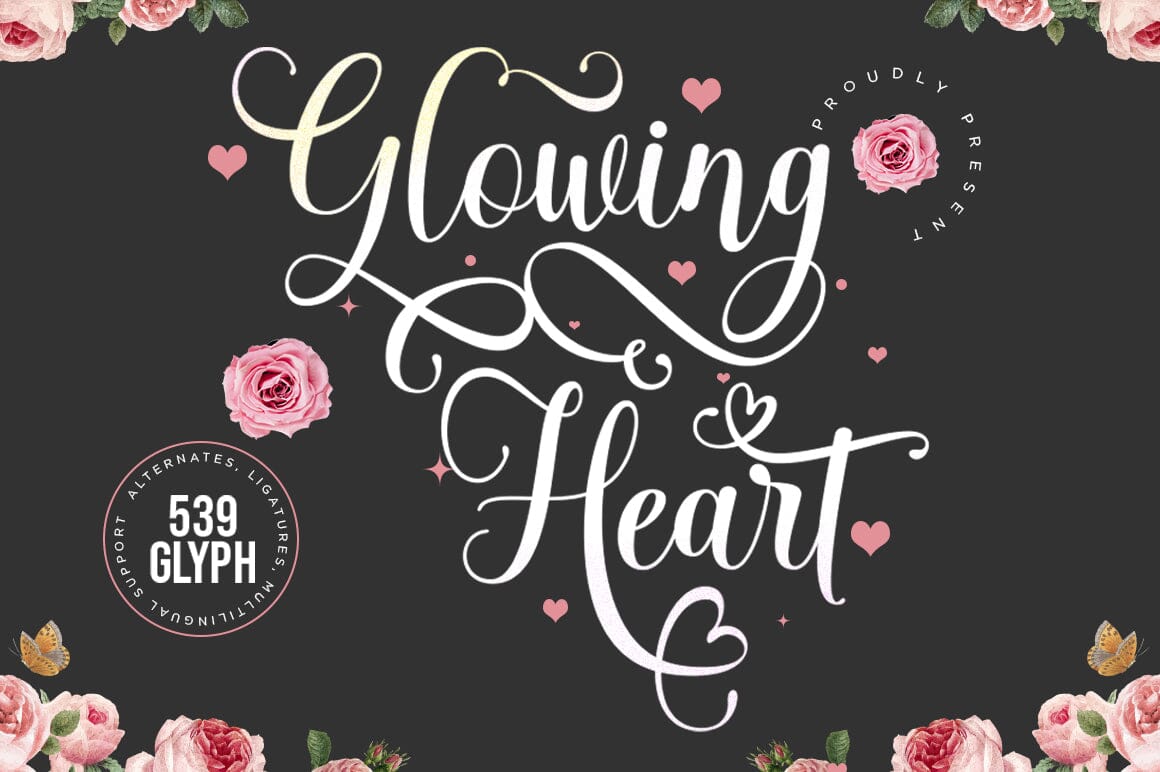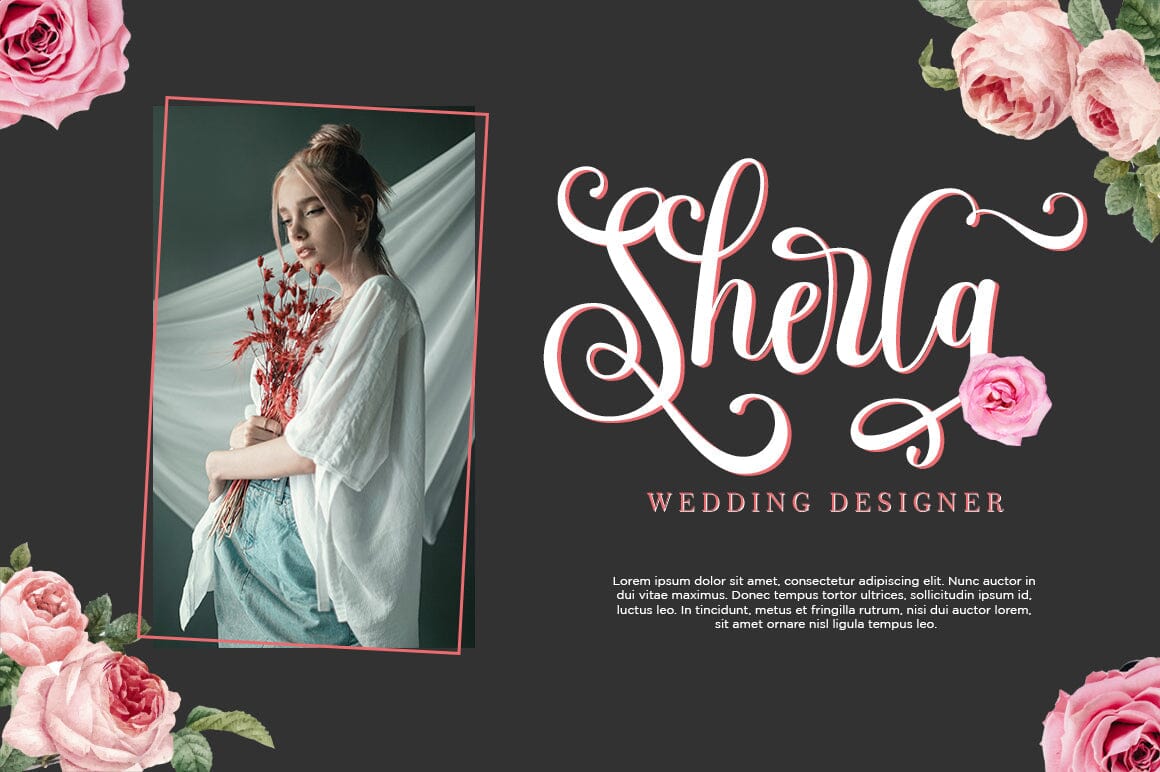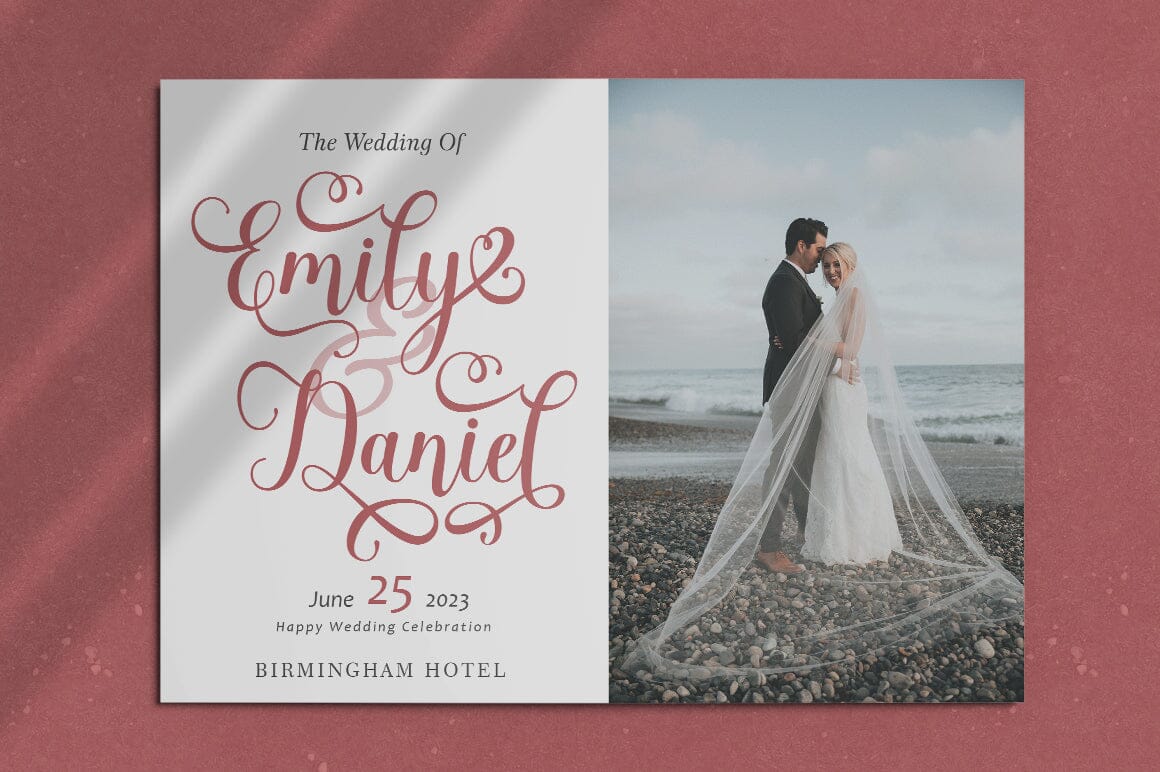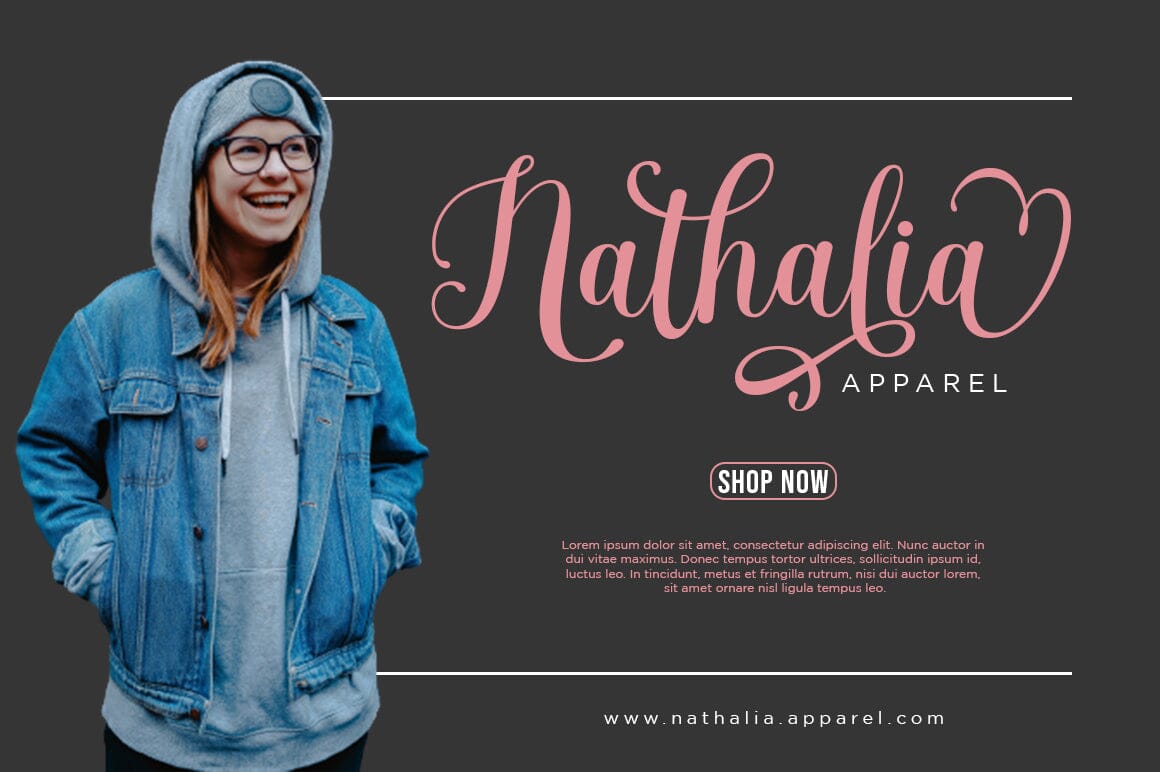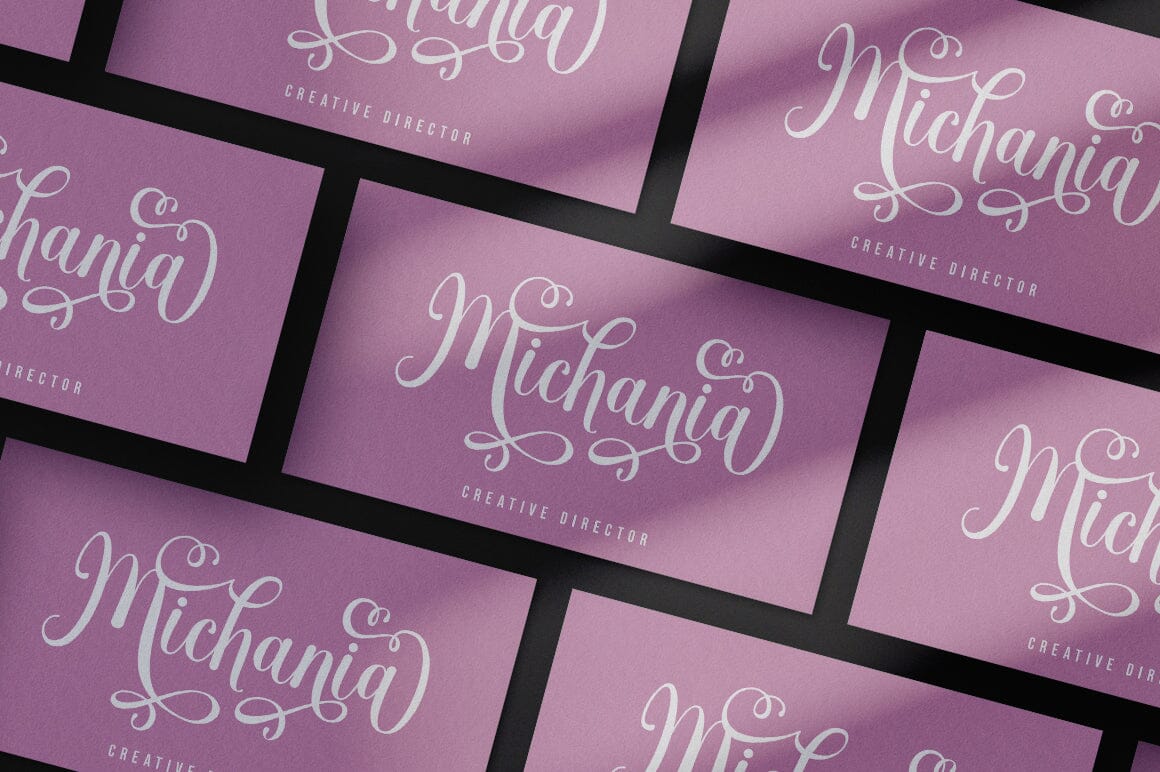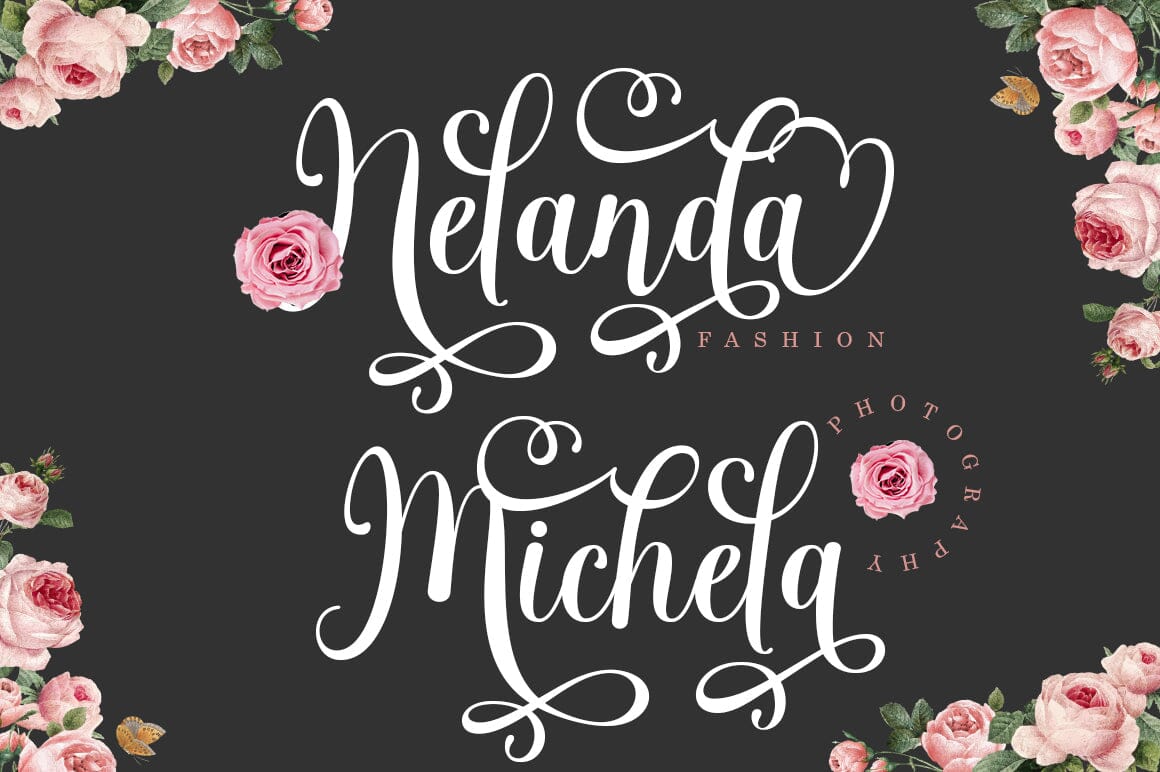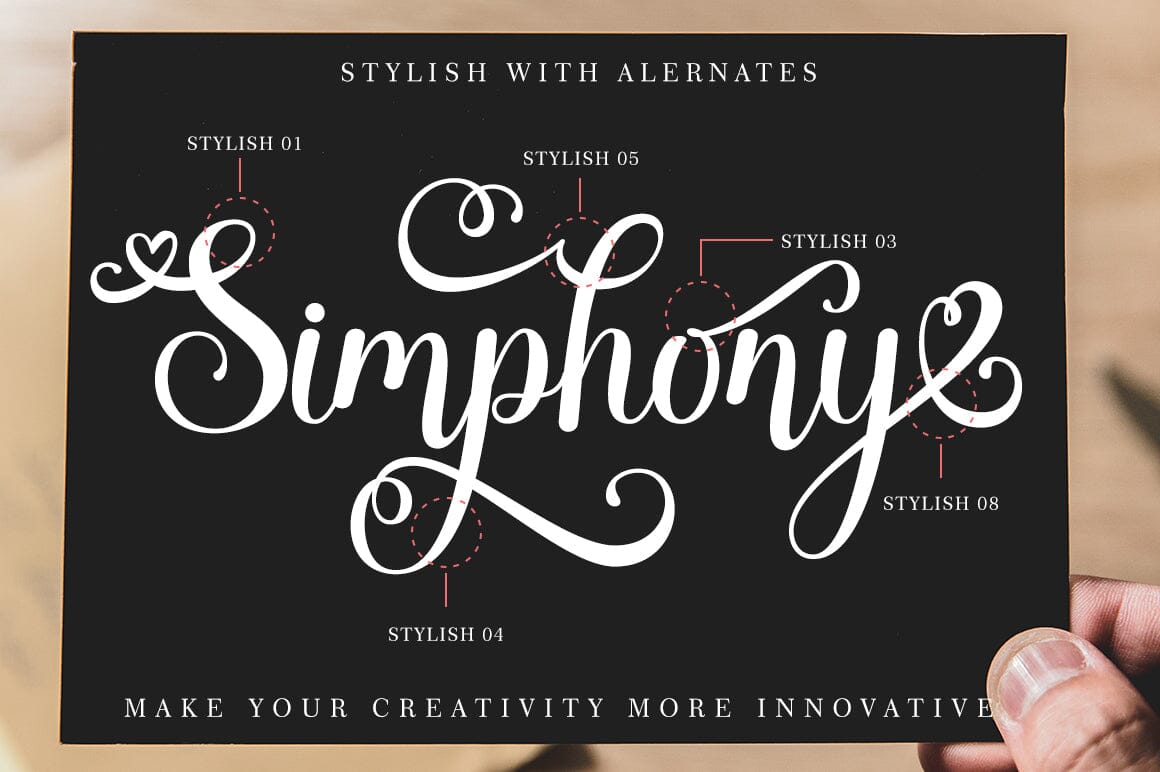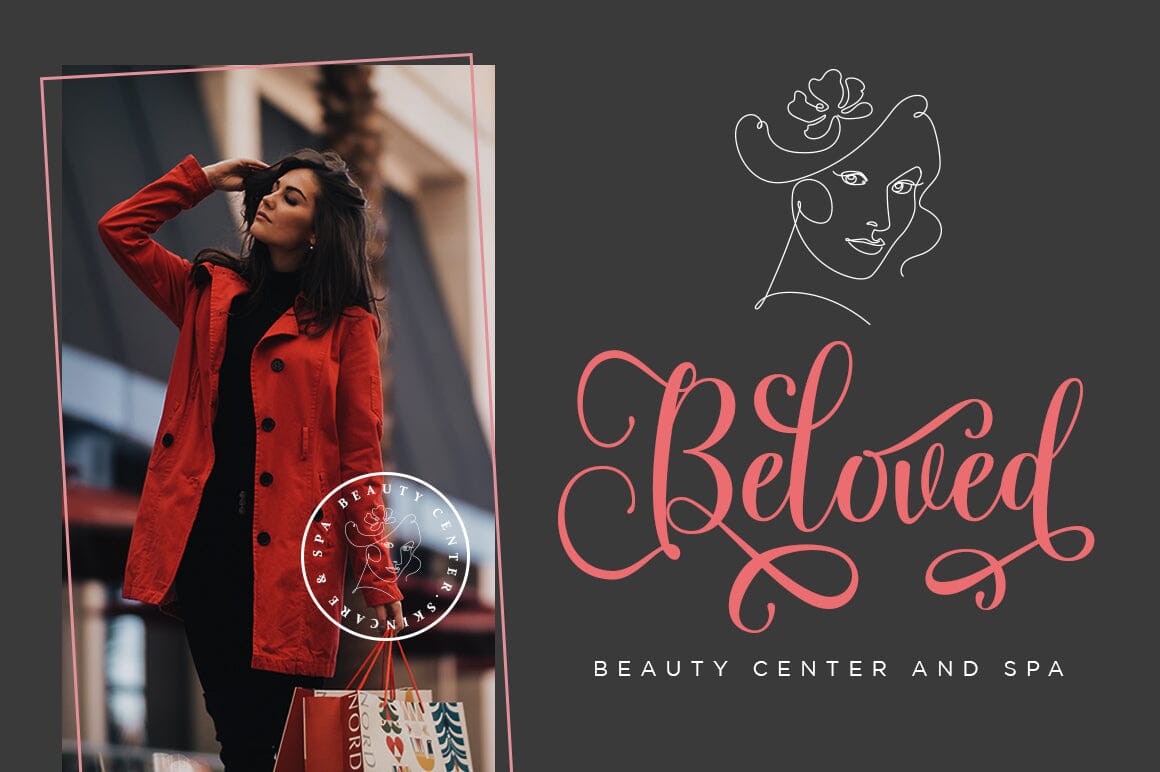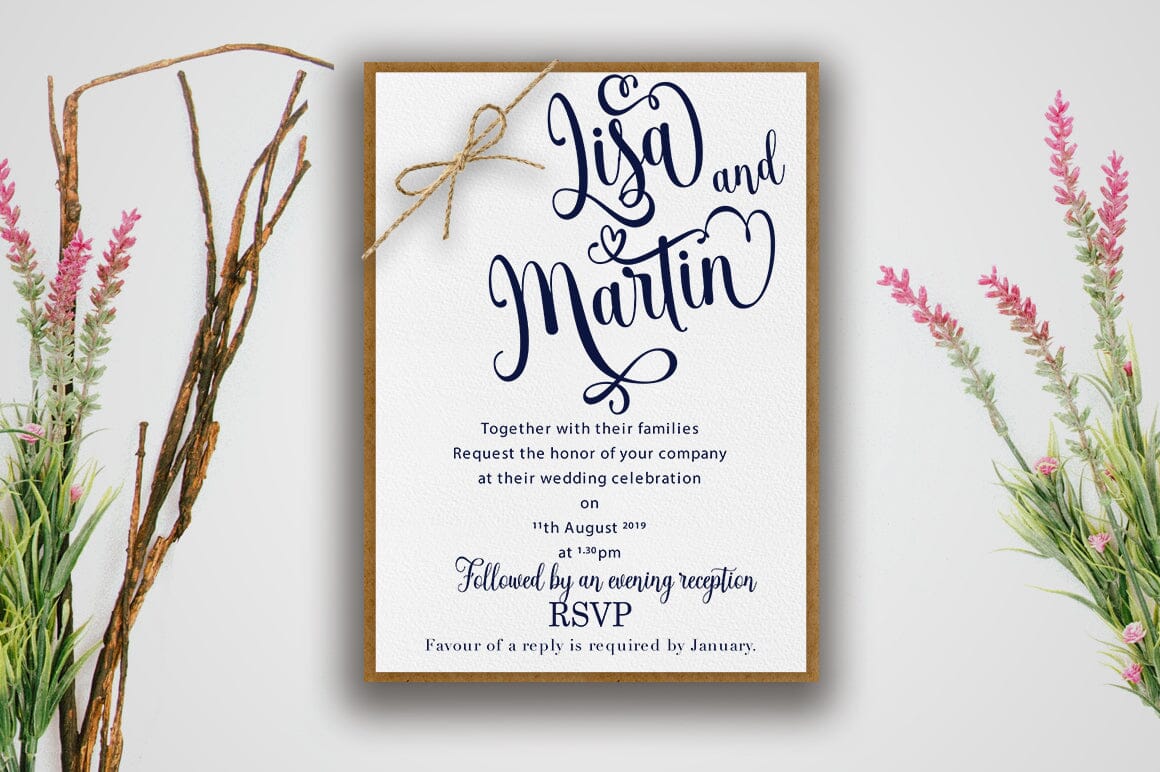
Glowing Heart
About Glowing Heart
Glowing Heart is an amazing typeface handmade script font that we created in freestyle for those of you who do both work and craft. It’s perfect for any type of work you do with multiple purposes such as logos, wedding invitations, titles, t-shirts, letterheads, signage, labels, news, posters, badges, etc. Files include: Glowing Heart. otf Glowing Heart .ttf Features OpenType with alternative styles, ligatures, and multiple language support. To enable the OpenType Stylistic alternative, you need a program that supports OpenType features such as Adobe Illustrator CS, Adobe Indesign & CorelDraw X6-X7, Microsoft Word 2010 or later. How to access all alternate characters, using Windows Character Map with Photoshop: https://www.youtube.com/watch?v=Go9vacoYmBw How to access all the alternate characters using Adobe Illustrator: http://youtu.be/iptSFA7feQ0